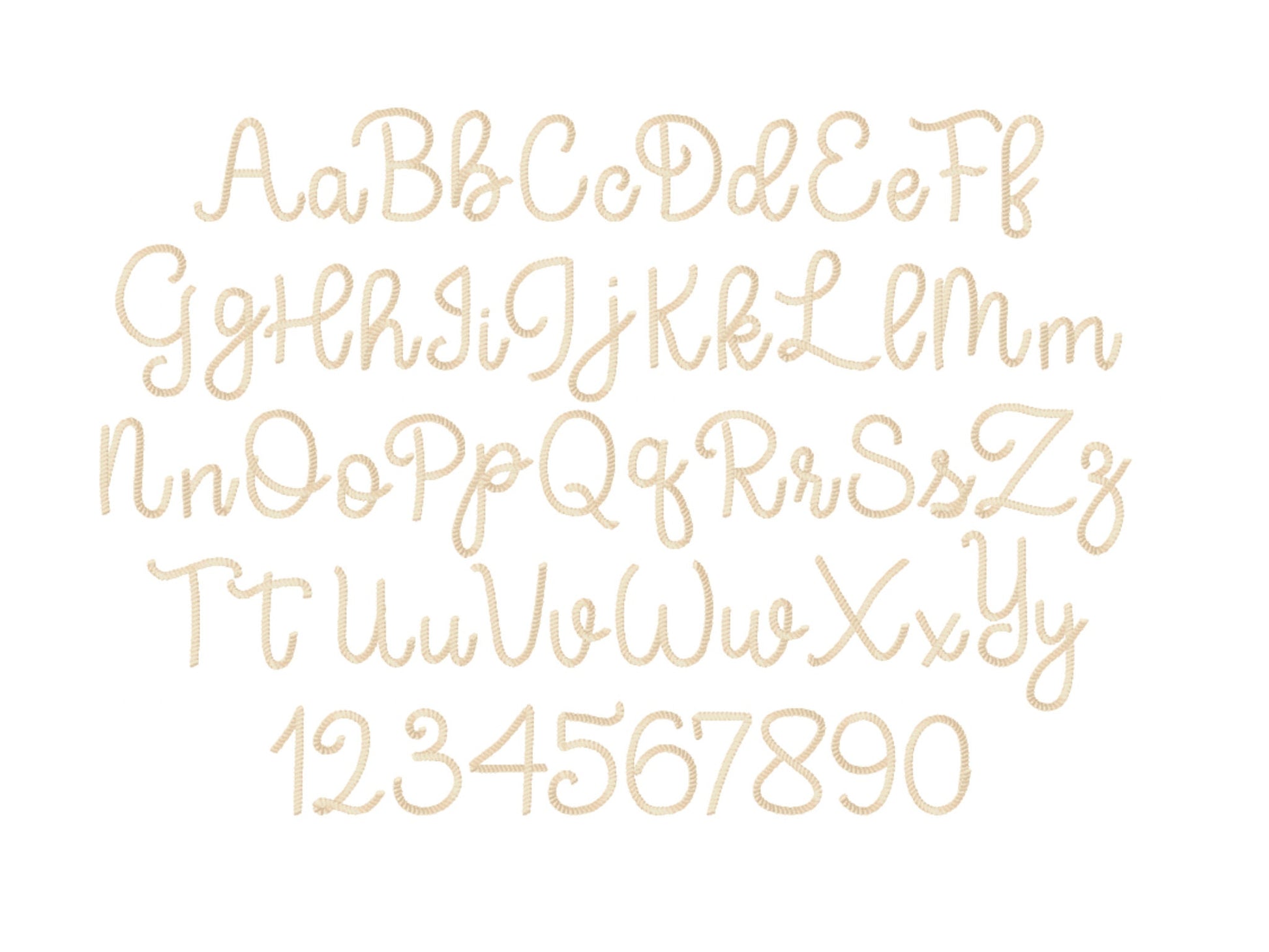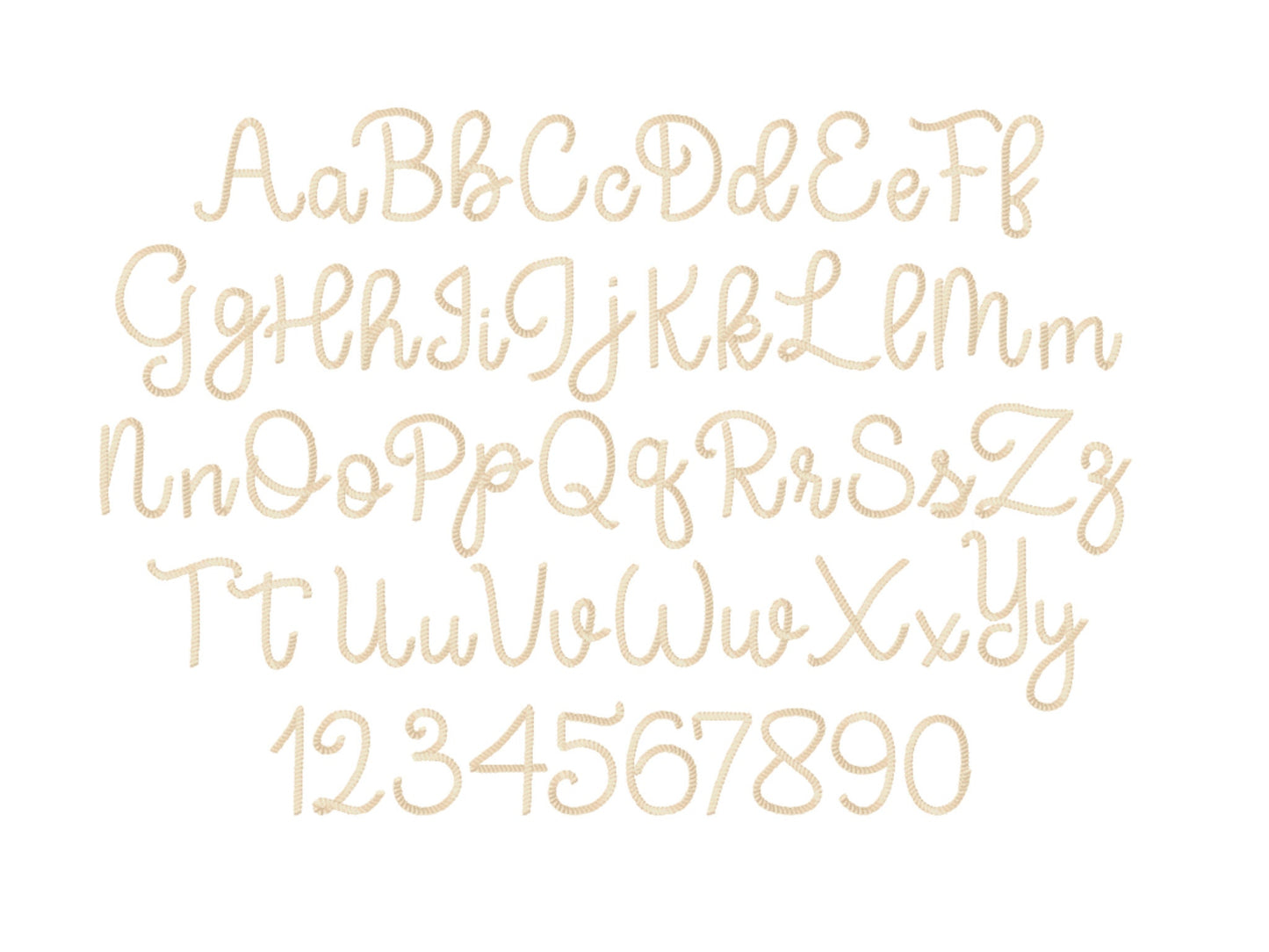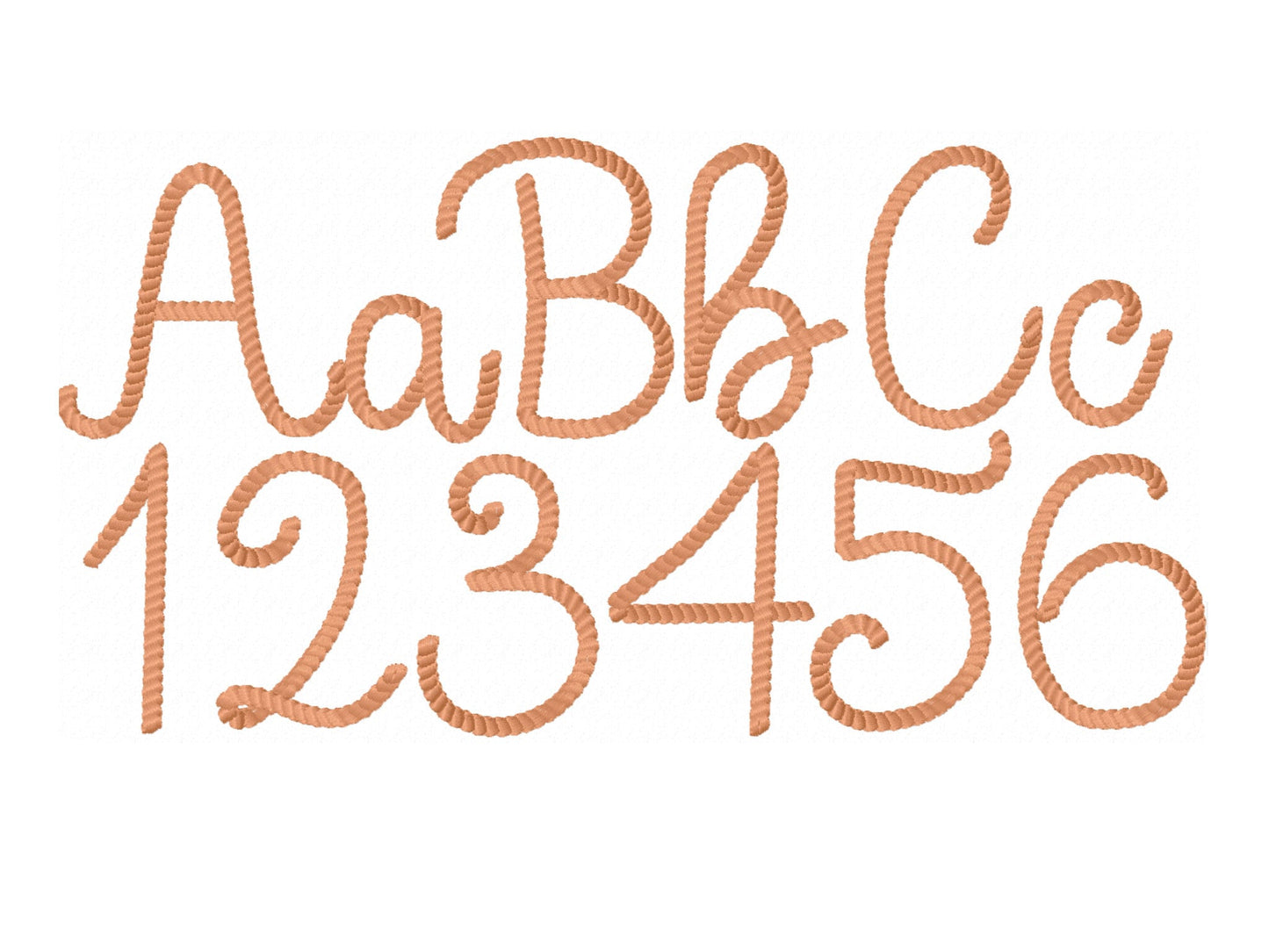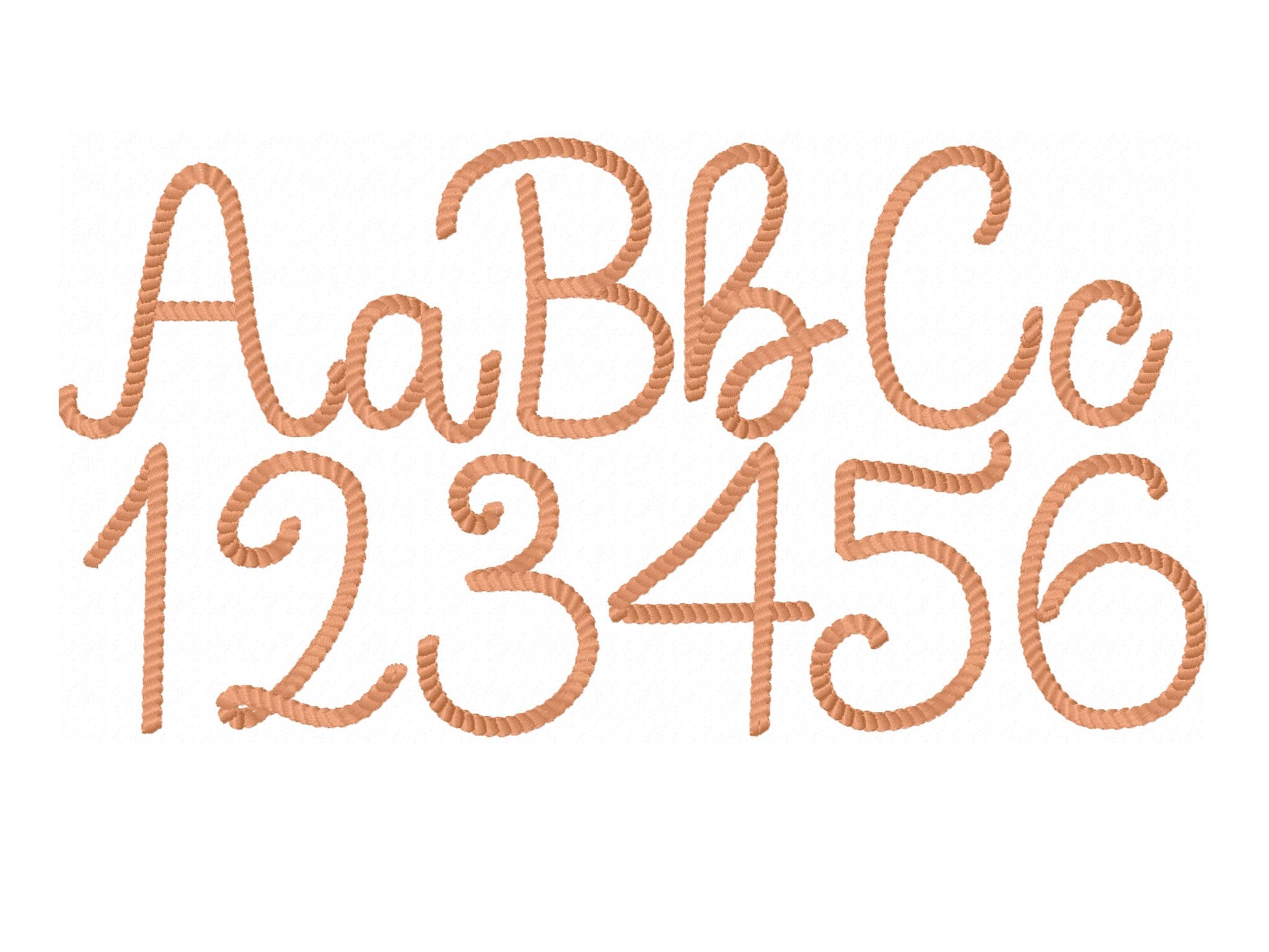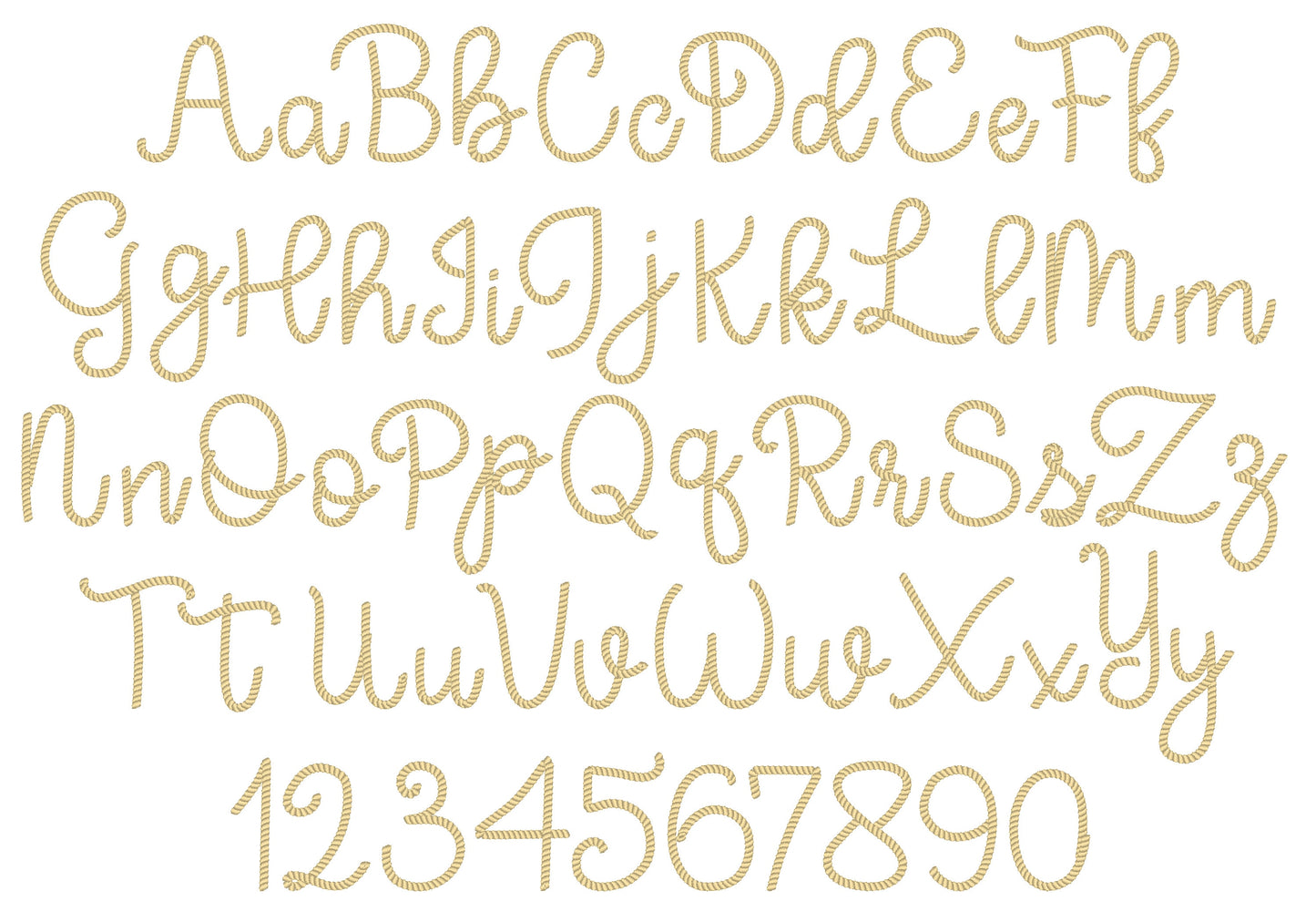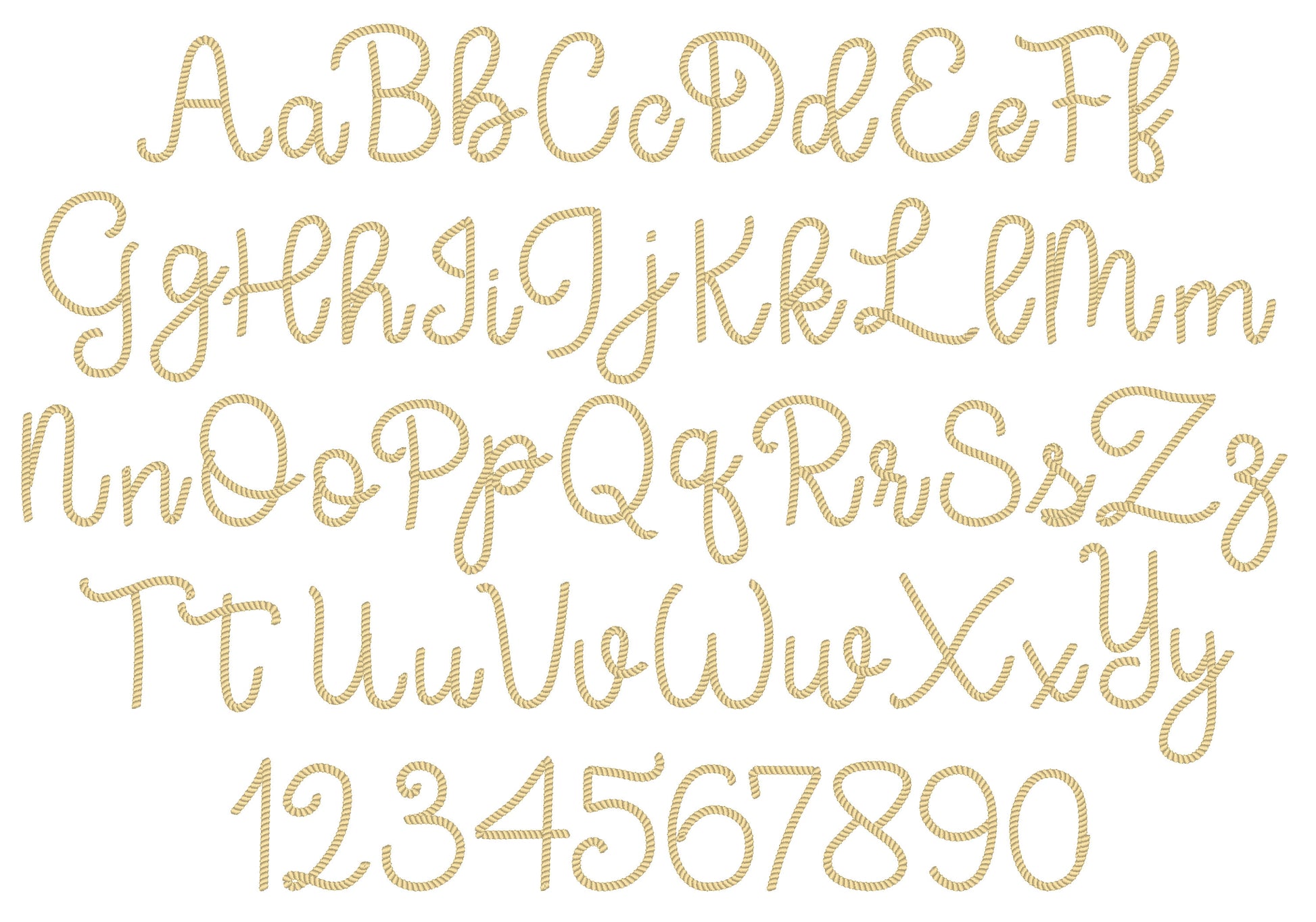
Super disappointed in this font. It looks thin from the pictures but the 0.8in size is so thick you can't even read it
Or click to open the linkA handwritten rope stitch font in small sizes. Playful for kids' names, cowboy and western shirts and little monograms.
Uppercase and lowercase letters, numbers 0 to 9 and a period, in six sizes: 0.8, 1, 1.3, 1.6, 2 and 2.3 inches. Each letter is stitched with a twisted rope texture.